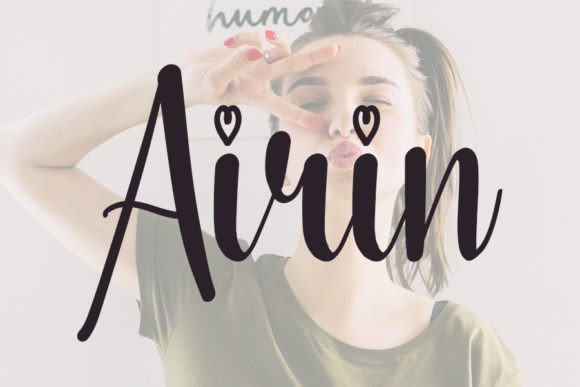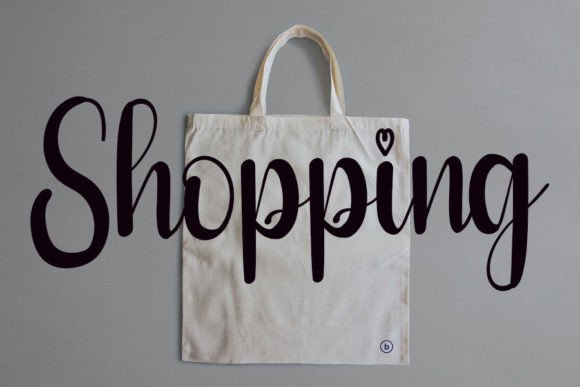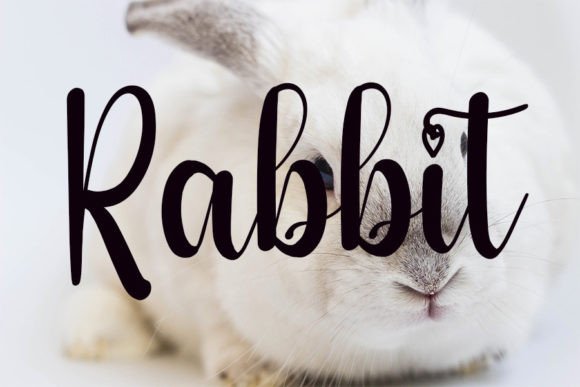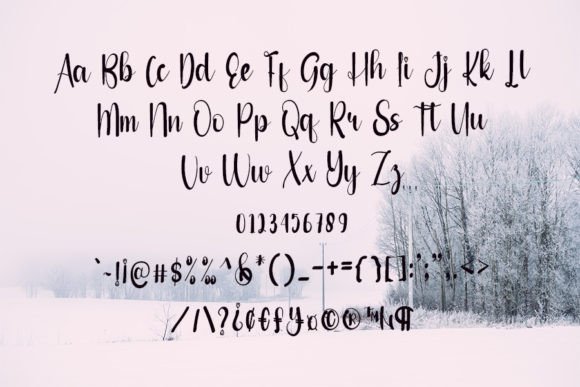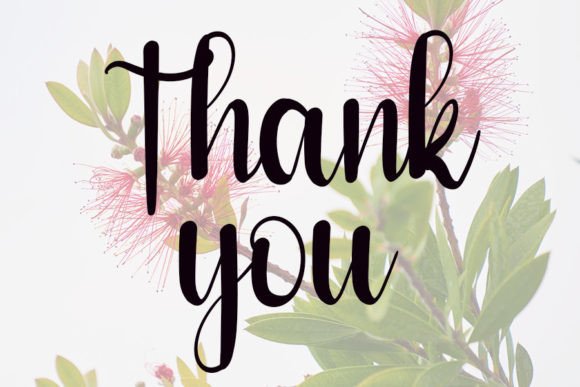
Banding Font: A Friendly Handwritten Font for Your Creative Projects
In the world of typography, a good font can make all the difference in bringing your creative projects to life. If you’re a designer, crafter, or simply someone who loves to dabble in DIY projects, you’re likely always on the lookout for the perfect font to add a personal touch to your work. That’s where Banding Font comes in – a friendly handwritten font that’s carefully designed to become a true favorite.
What is Banding Font?
Banding Font is a beautiful, handwritten font that strikes the perfect balance between classic calligraphy influences and modern freshness. Its unique blend of traditional and contemporary elements makes it an excellent addition to any font library. With Banding Font, you can add a touch of elegance and sophistication to your projects, while still maintaining a friendly and approachable feel.
Key Features of Banding Font
• Classic Calligraphy Influences: Banding Font draws inspiration from traditional calligraphy, giving it a timeless and sophisticated feel.
• Contemporary and Fresh: Despite its classic roots, Banding Font has a modern twist that makes it feel fresh and current.
• Handwritten Charm: The font’s handwritten nature gives it a personal and approachable feel, perfect for adding a touch of warmth to your projects.
• Versatile: Banding Font is suitable for a wide range of creative projects, from branding and advertising to crafting and DIY.
Why Choose Banding Font?
So, why should you choose Banding Font for your creative projects? Here are just a few reasons:
• Easy to Read: Banding Font is designed to be easy to read, making it perfect for body text, headings, and titles.
• Highly Versatile: The font’s versatility means you can use it for a wide range of projects, from formal to informal.
• Unique and Memorable: Banding Font’s unique blend of classic and modern elements makes it a standout font that’s sure to leave a lasting impression.
How to Use Banding Font in Your Creative Projects
Ready to start using Banding Font in your creative projects? Here are a few ideas to get you started:
• Branding and Advertising: Use Banding Font to create eye-catching logos, ads, and marketing materials that showcase your brand’s personality.
• Crafting and DIY: Add a personal touch to your crafting and DIY projects, such as handmade cards, gift tags, and decorations.
• Digital Design: Use Banding Font in your digital designs, such as social media graphics, blog posts, and website headers.
Tips for Getting the Most Out of Banding Font
To get the most out of Banding Font, here are a few tips to keep in mind:
• Experiment with Different Sizes: Banding Font looks great in a variety of sizes, so don’t be afraid to experiment to find the perfect fit for your project.
• Play with Color: The font’s classic and modern elements make it a great match for a wide range of colors, so have fun experimenting to find the perfect hue.
• Mix and Match: Combine Banding Font with other fonts to create a unique and eye-catching look.
In conclusion, Banding Font is a friendly handwritten font that’s sure to become a true favorite in your font library. With its classic calligraphy influences, modern freshness, and versatile nature, it’s the perfect addition to any creative project. Whether you’re a designer, crafter, or simply someone who loves to dabble in DIY projects, Banding Font is sure to bring your projects to life in a way that’s both elegant and approachable. So why wait? Give Banding Font a try today and see the difference it can make!